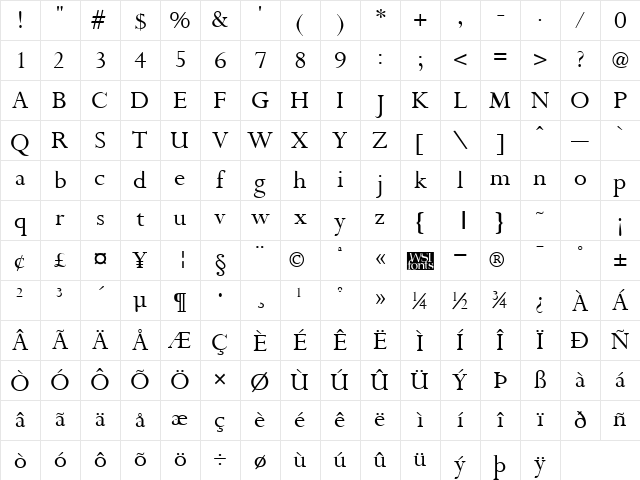
Purloin Regular
Complete Purloin Regular glyph index. Displaying only characters natively supported by Purloin Regular font.
Design Context for Purloin
Purloin is a composed and adaptable typeface that performs quietly and consistently across a wide range of design contexts.